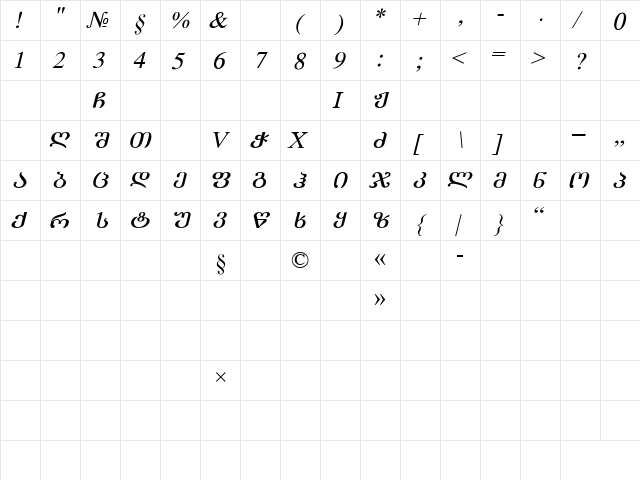
Lit Mtavr_It Regular Font Preview
Lit Mtavr_It Regular
Design Context for Lit Mtavr_It Typeface
Lit Mtavr_It offers clean, dependable letterforms without strong stylistic allegiance, making it a practical choice for designers who need flexibility.